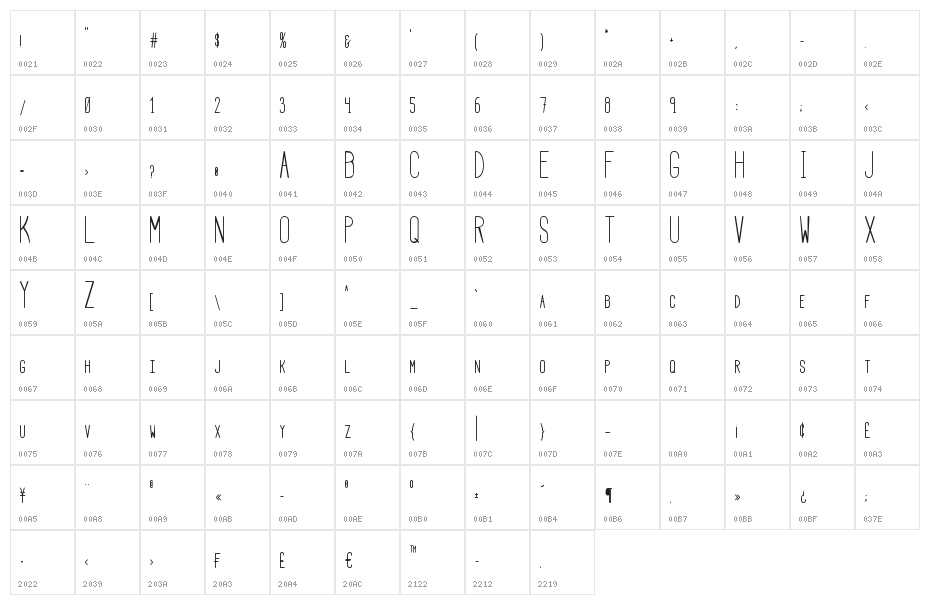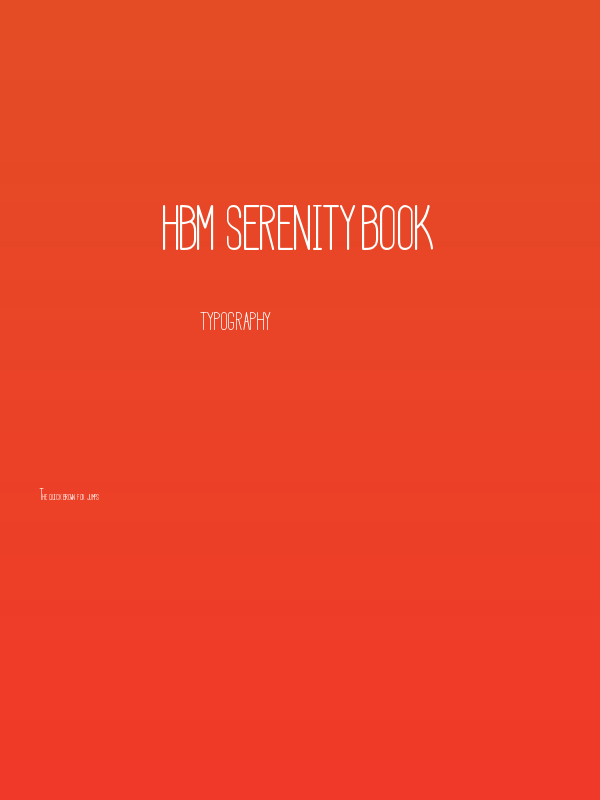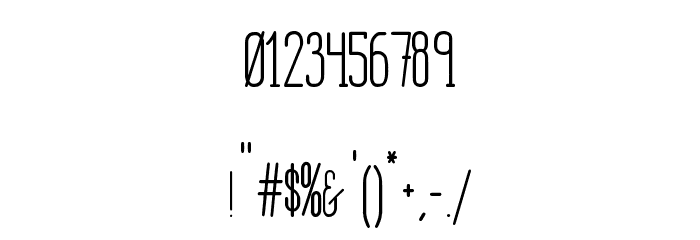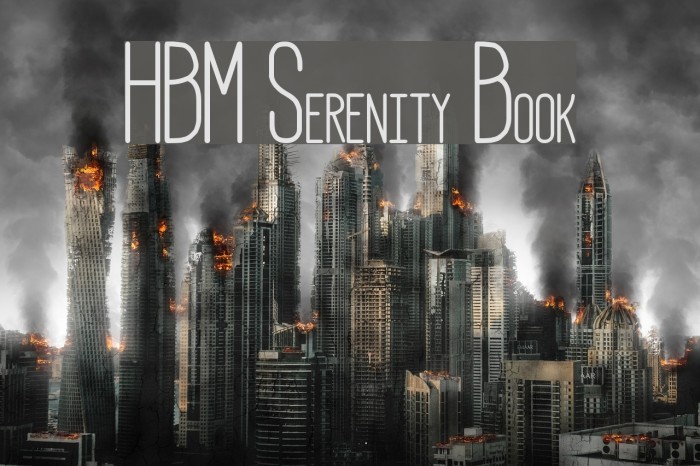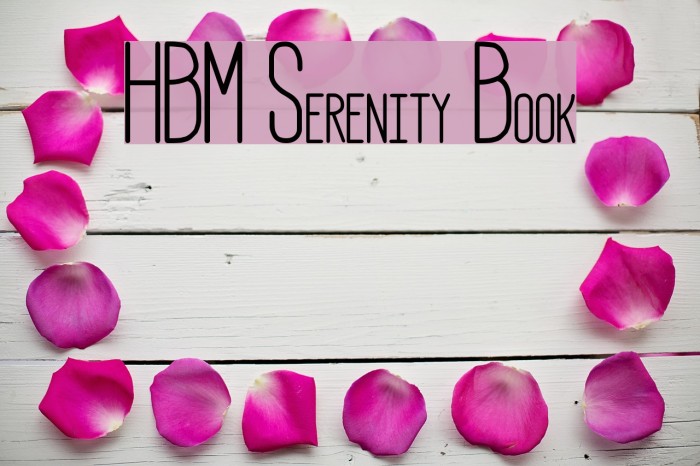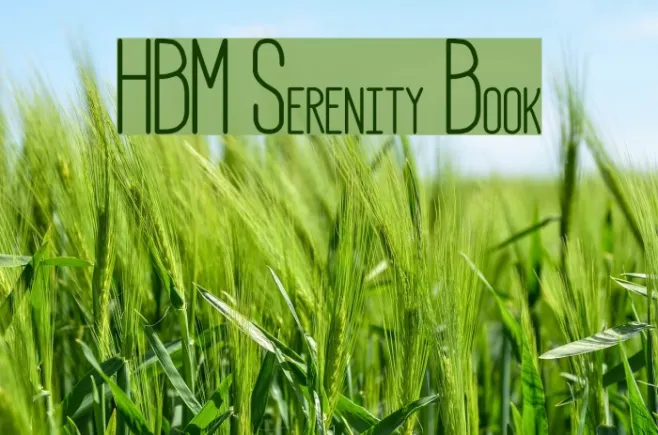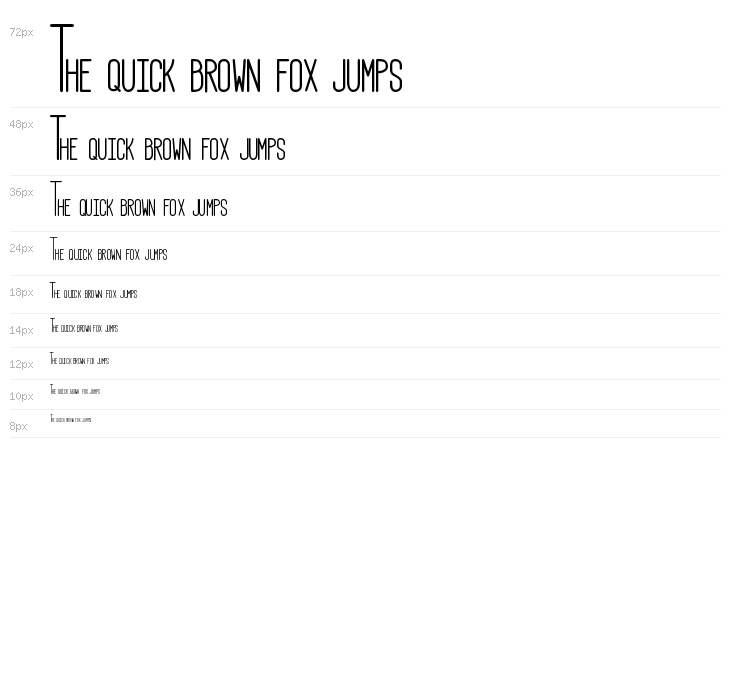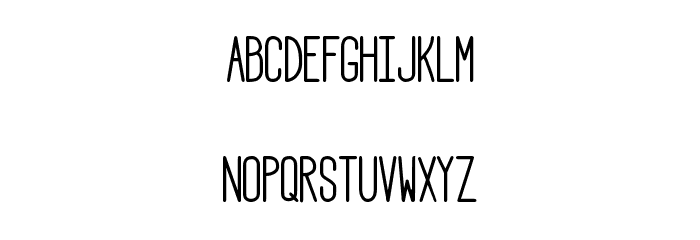
HBM Serenity Book Font
HBM Serenity Book Description
This font features a tall, narrow design with clean, straight lines and minimal curves, giving it a modern and sleek appearance. The uppercase letters are uniform in height, while the lowercase letters maintain a consistent style that complements the uppercase. The numerals are distinct and easy to read, with a similar narrow structure. Special characters are included, maintaining the same aesthetic as the alphanumeric characters. The overall look is contemporary and stylish, suitable for a variety of design applications.
| Proposed Projects | Ideal for modern branding, minimalist posters, sleek website headers, and stylish invitations. |